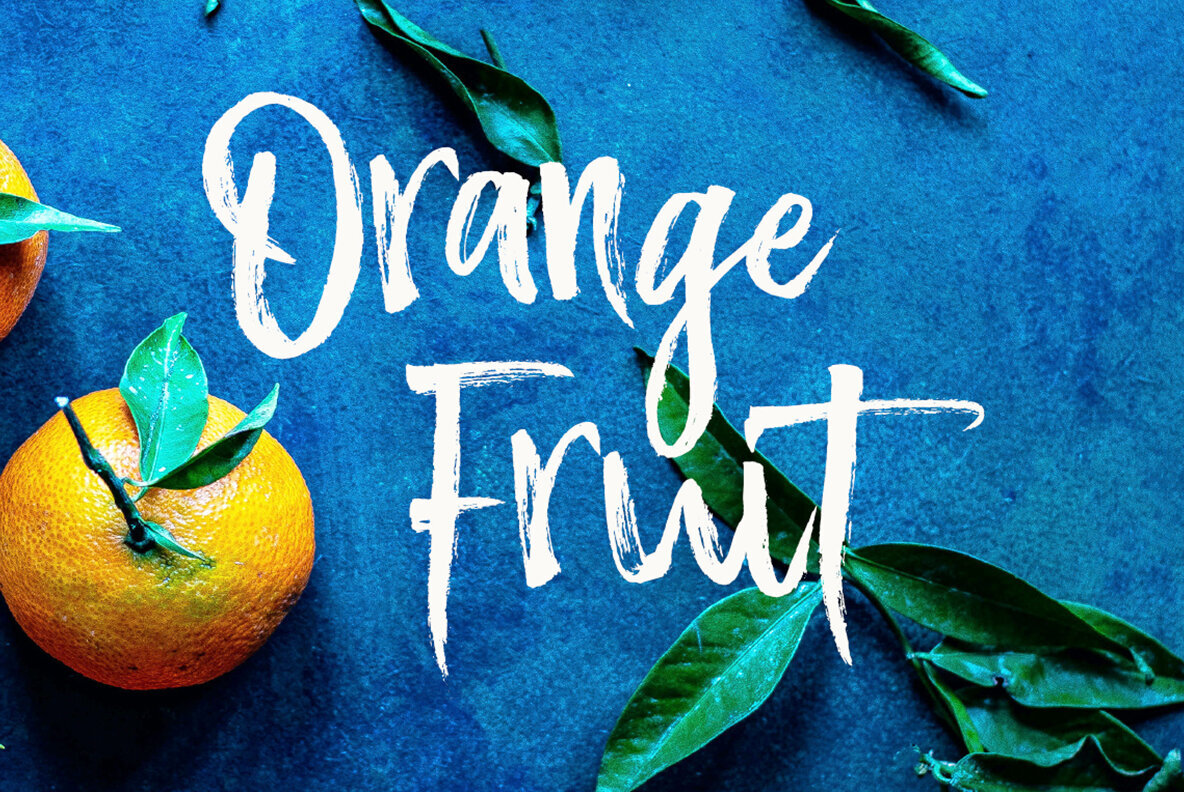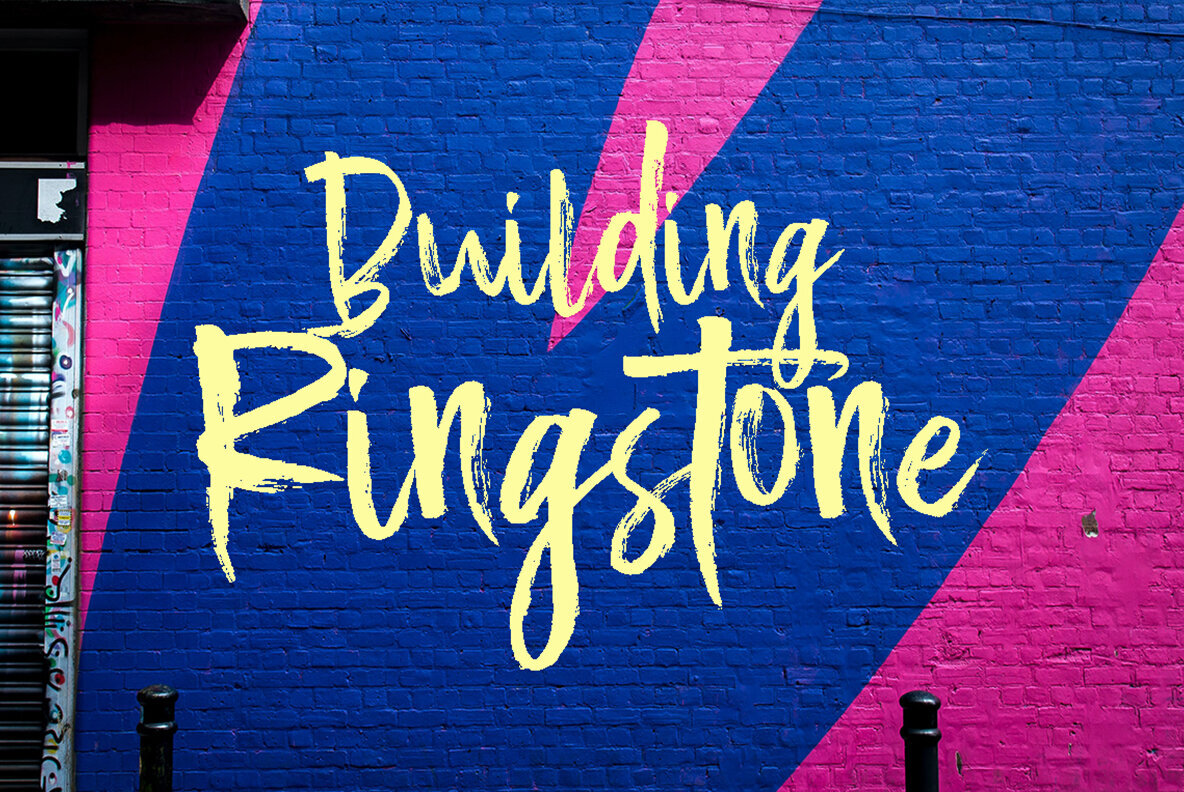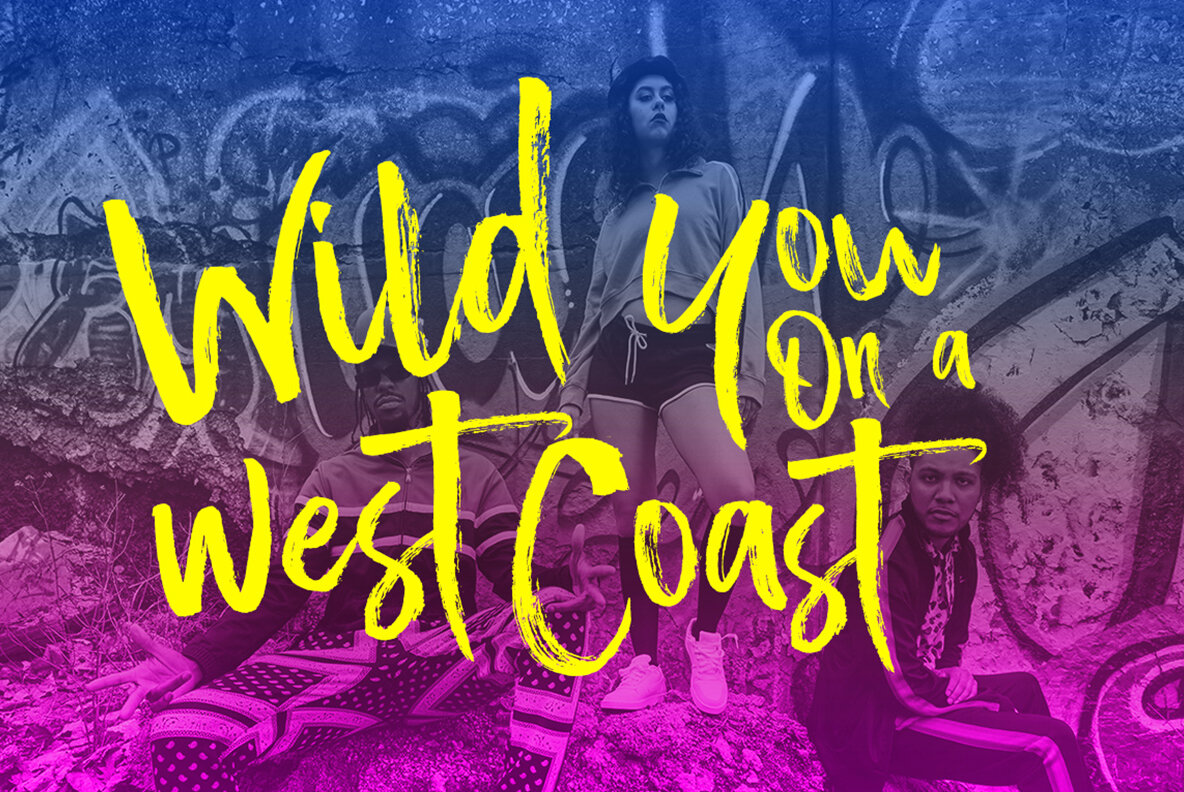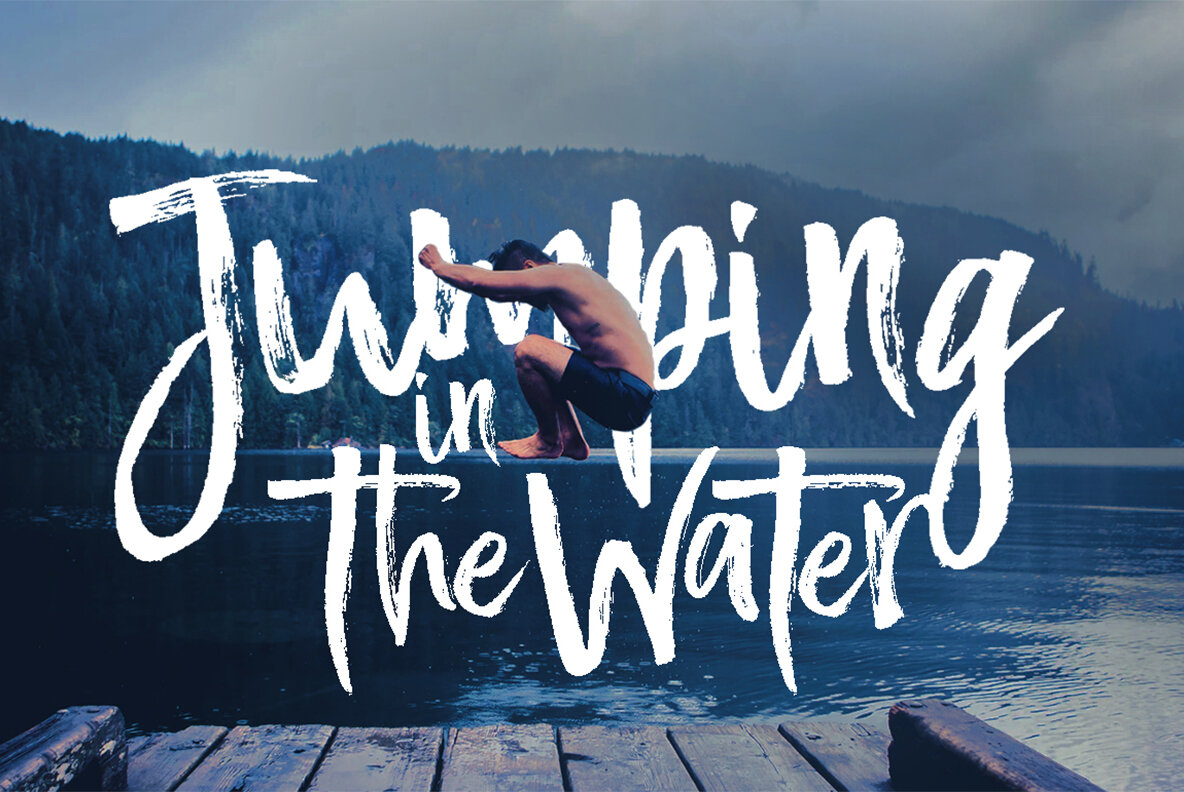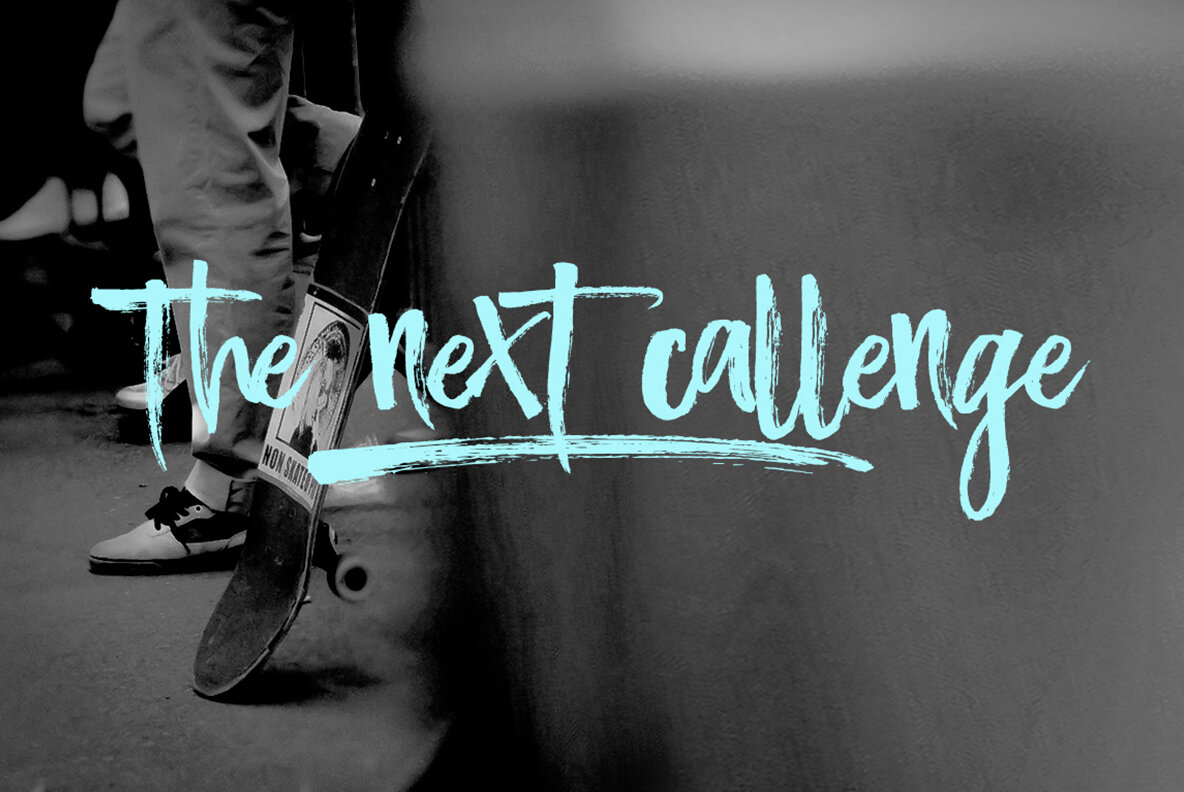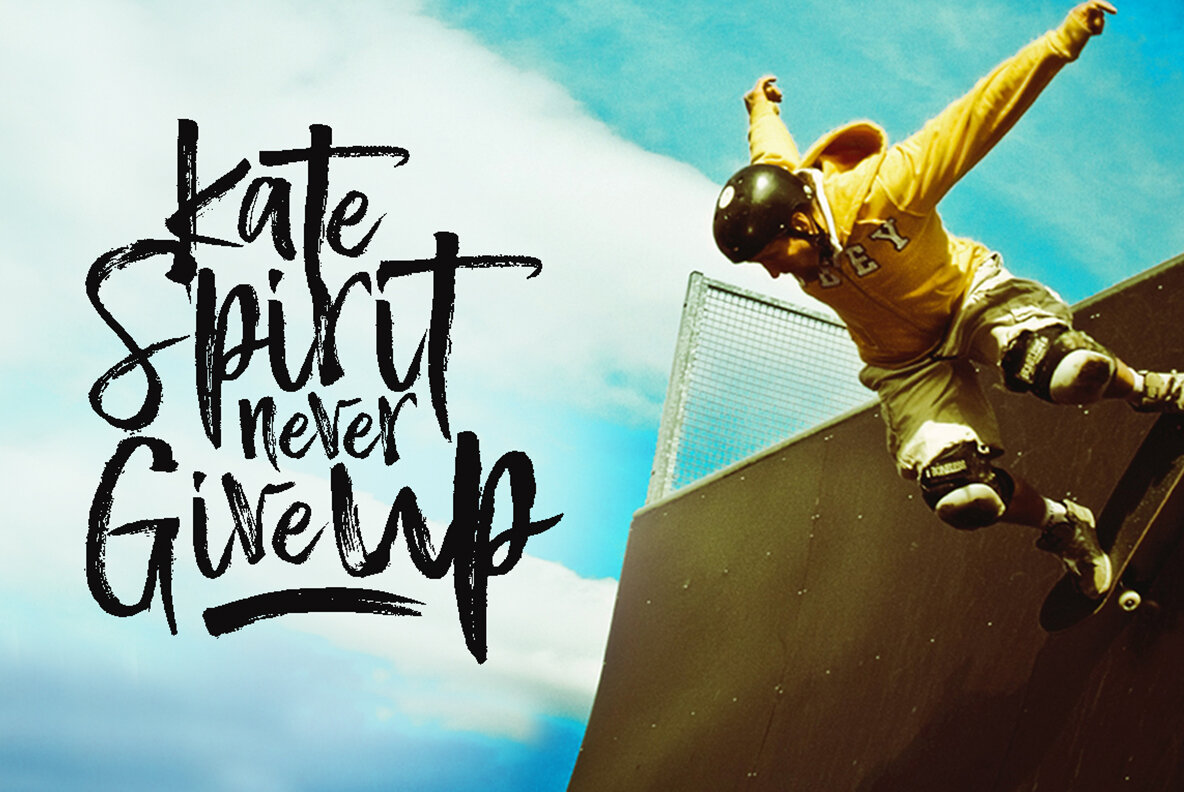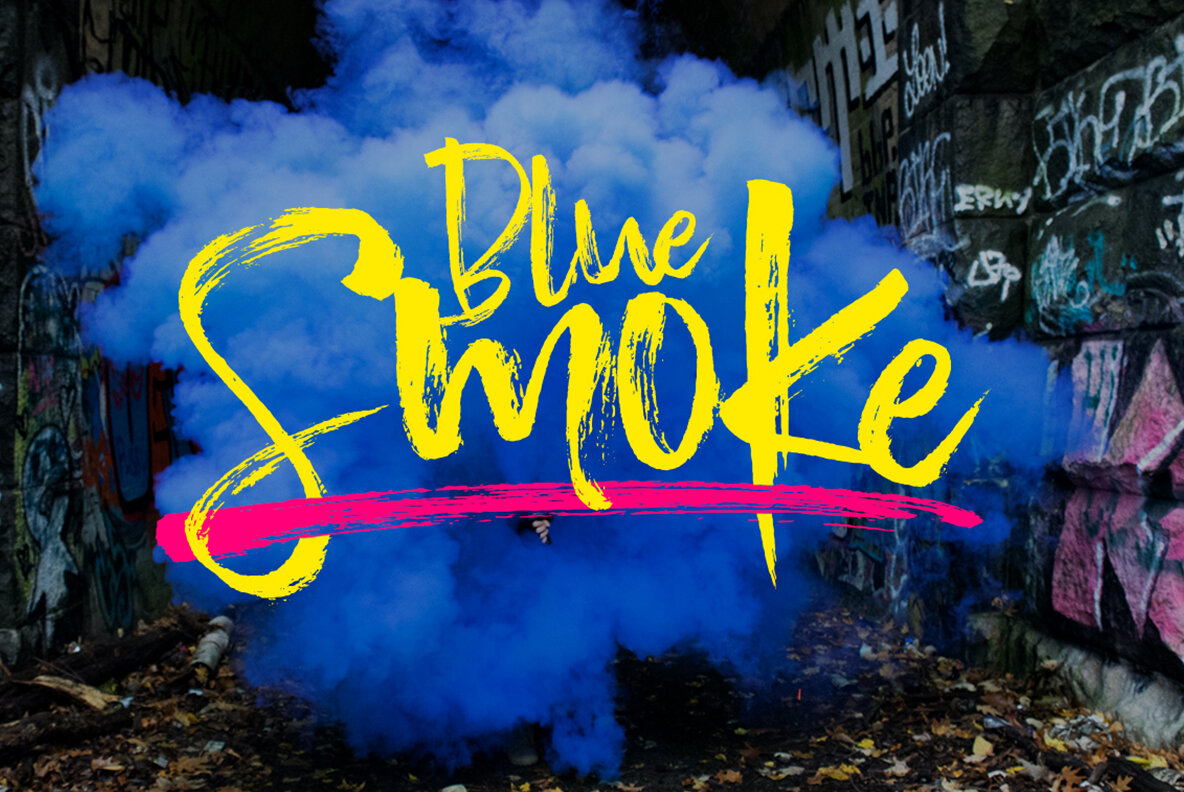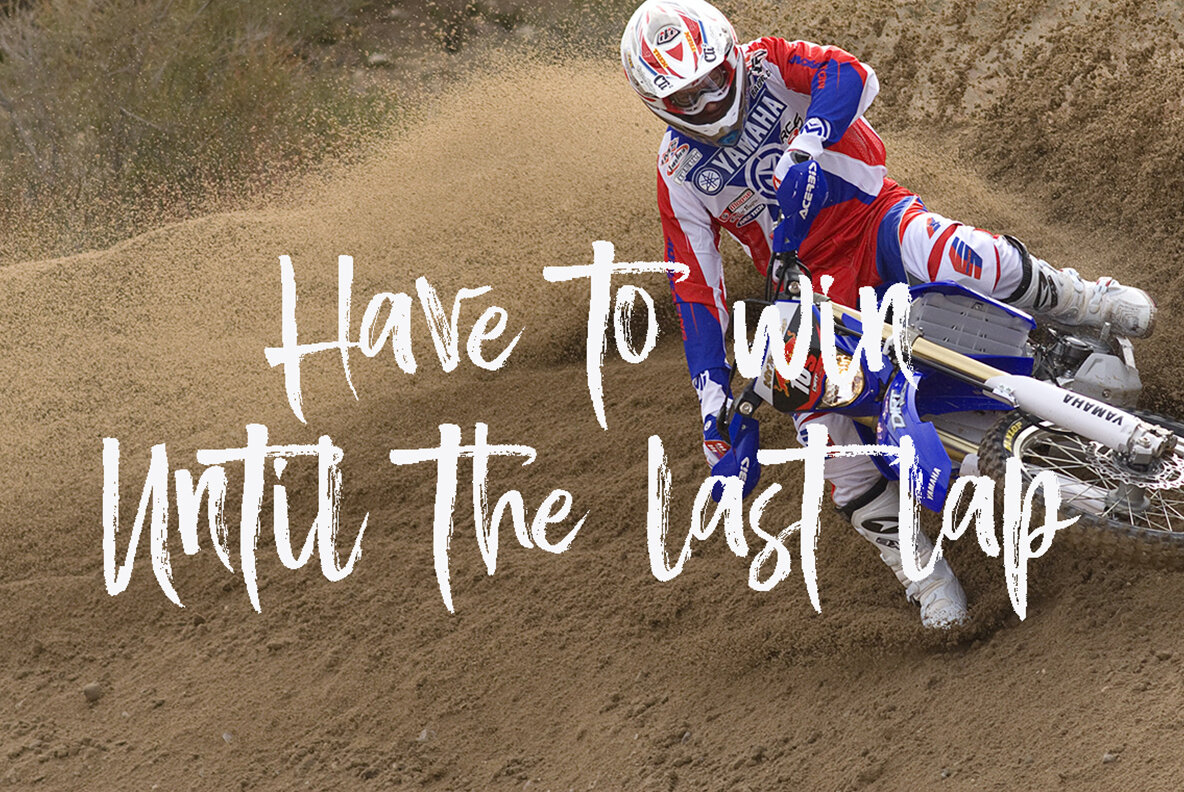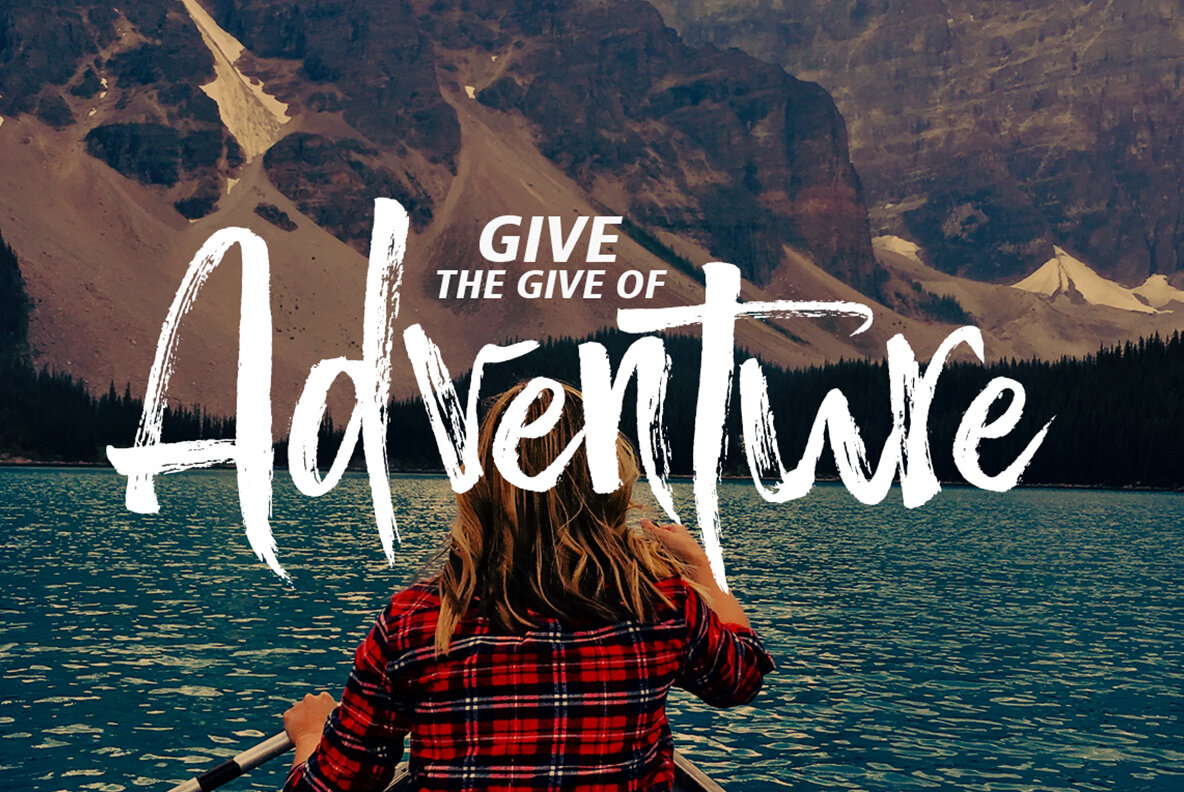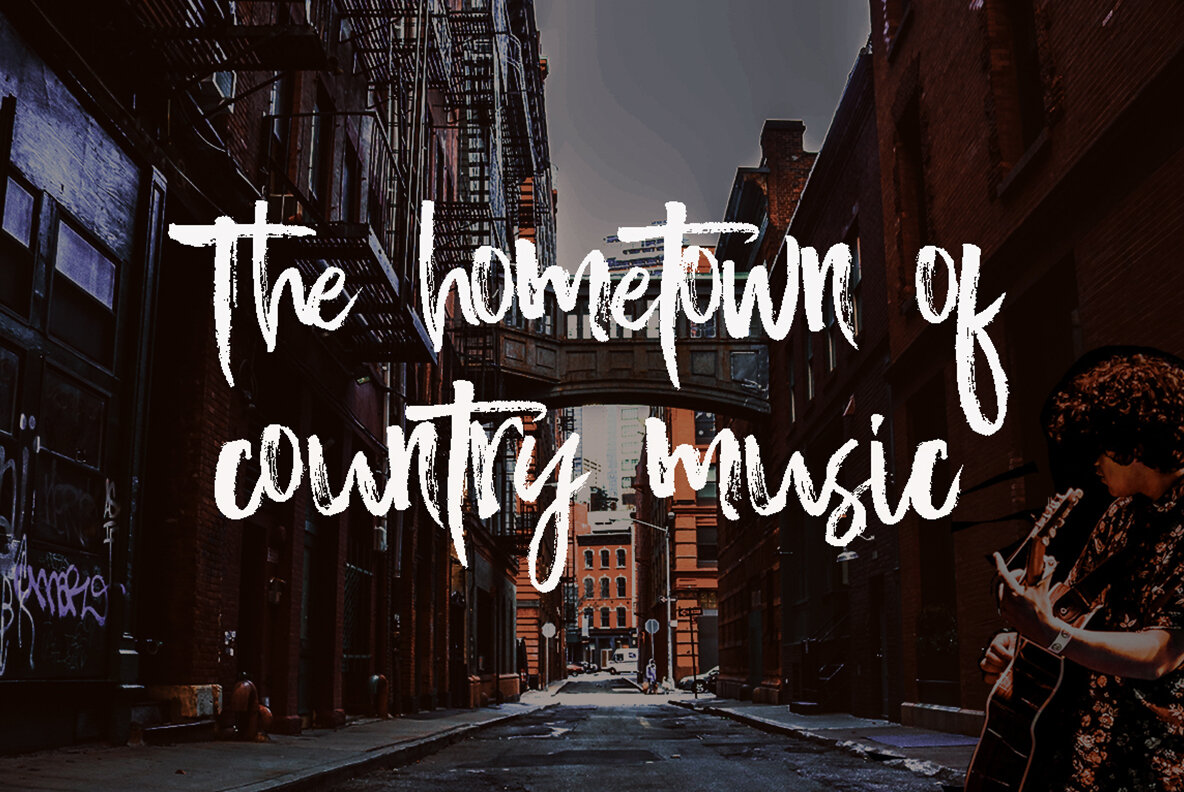
Black Panther Font
Black Panther is a textured brush font that embodies a contemporary approach to design. Crafted with a handmade, natural, and irregular baseline, this font is ideal for titles and adds a unique character to various projects. Designer: KhaidirBlack Panther: Textured Brush Font with a Handmade Touch
Perfect for Diverse Applications